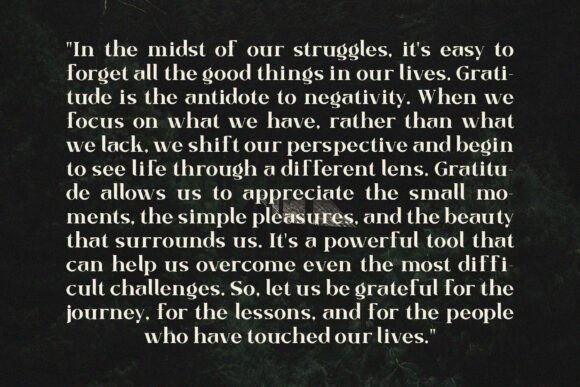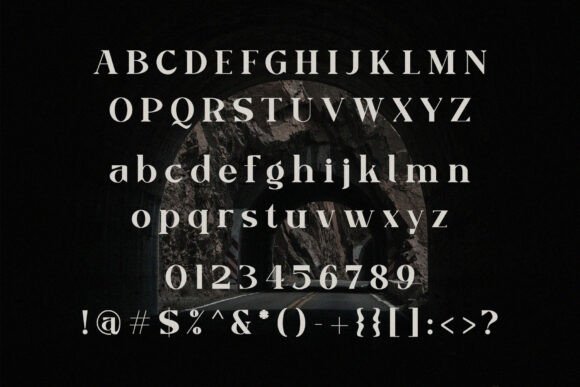
Introduction to Liberia Font
As you sit in front of your computer, staring at a blank design canvas, the question echoes in your mind: what font will bring my creative vision to life? The perfect font can make or break a design, elevating it from bland to grand. And that’s where Liberia Font comes in – a modern serif font that has been making waves in the design community for its perfect balance of classic elegance and contemporary design.
With its clean lines, refined curves, and balanced proportions, Liberia Font is the ultimate design resource for any creative project. Whether you’re designing a high-end logo, crafting a beautiful wedding invitation, or creating a minimalist book cover, this font will add a touch of sophistication and elegance to your work. And the best part? It’s available for a free download, making it an accessible high quality design tool for designers of all levels.
Liberia Font
- Includes multiple font weights and styles for customizable designs
- Supports a wide range of languages and characters for global projects
- Designed with a modern aesthetic, ideal for digital and print applications
Honest Review: Liberia Font
I recently came across the Liberia Font and was excited to give it a try for my current creative project. The Liberia Font is a free download, which is always a great starting point for designers on a budget.
- ✨ High quality design – the font is crisp and clean, making it perfect for body text and headings.
- ✨ Transparent background option – this allows for seamless integration into any design project, especially when working with transparent backgrounds.
- ✨ Versatile – the Liberia Font is suitable for a wide range of design projects, from print to digital media.
- ⚠️ Limited character set – the font doesn’t include as many special characters and symbols as I would have liked.
- ⚠️ Not ideal for titles or headings in bold text – the font can become difficult to read when used in bold text.
Overall, the Liberia Font is a solid addition to any design resource library. While it may not be perfect, it’s a high quality font that can be used in a variety of creative projects. If you’re looking for a free font with a transparent background, the Liberia Font is definitely worth checking out.
Liberia Font
The Liberia Font is perfect for creating visually appealing titles, headings, and captions for various creative projects. It can also be used for designing logos, brochures, and other marketing materials.
Getting the Most Out of Liberia Font
To get the most out of the Liberia Font, experiment with different font sizes, colors, and combinations to create unique and eye-catching designs. Additionally, use the font in conjunction with other design elements to enhance the overall visual impact of your project.
Alternatives to Liberia Font
Lato Font is a sans-serif typeface perfect for creative projects that require a clean and modern design. It’s a high-quality font that’s suitable for both print and digital media, and it’s completely free to download. Use it for designs that require a transparent background and a touch of sophistication. Lato Font is similar to Liberia Font in its simplicity but has a more modern feel to it.
Merriweather Font is a classic serif typeface that’s ideal for designs that require a sense of tradition and elegance. It’s a high-quality design resource that’s suitable for both print and digital media, and it’s completely free to download. Use it for creative projects that require a touch of sophistication and a classic feel. Merriweather Font is similar to Liberia Font in its classic feel but has a more refined and polished look to it.